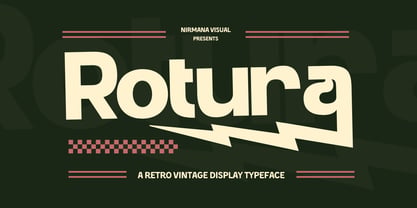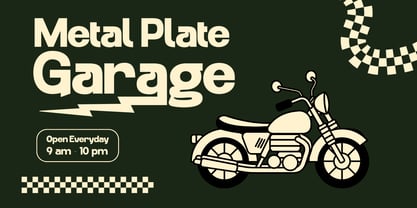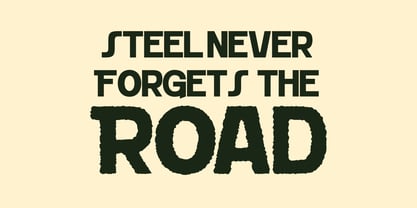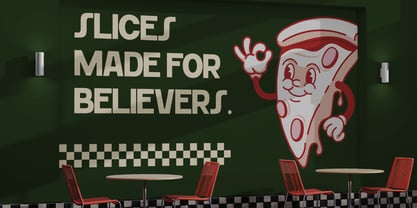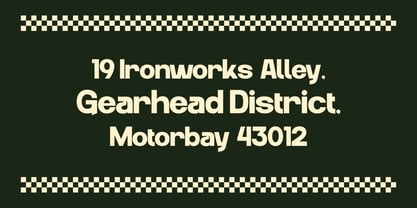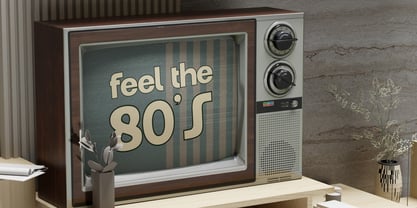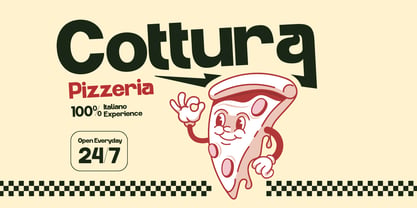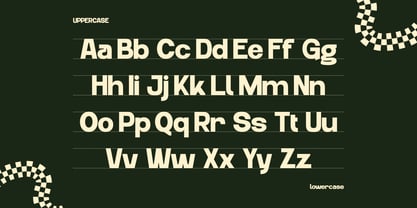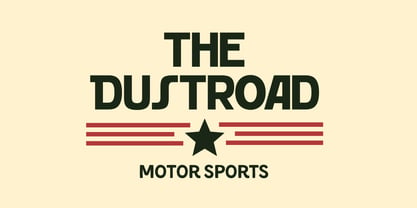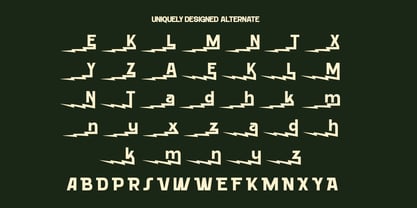
Rotura Vintage
by Nirmana Visual
The Rotura Vintage Font Family was designed by Sigit Dwipa and published by Nirmana Visual. Rotura Vintage contains 2 styles and family package options. More about this family
Rotura Vintage is a bold retro-style font available in Regular and Rough versions, crafted for motorcycle culture, garage-themed designs, and classic branding. Its rugged letterforms bring an authentic handcrafted feel, perfect for logos, patches, labels, posters, and vintage merchandise. Rotura Vintage delivers strong character and timeless attitude, making every design look powerful, raw, and unforgettable.
Designers: Sigit Dwipa
Foundry: Nirmana Visual